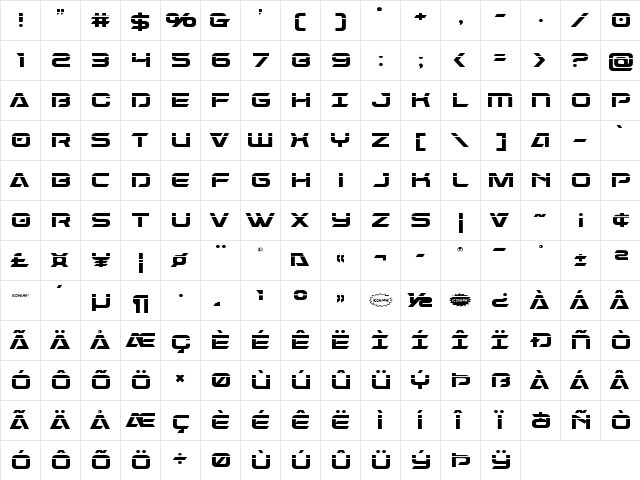
Dameron Laser Regular
Design Context for Dameron Laser Typeface
Dameron Laser is a composed and adaptable typeface that performs quietly and consistently across a wide range of design contexts.
Pro Tip: Pair Dameron Laser with a font of contrasting weight or personality to build a more expressive typographic hierarchy.